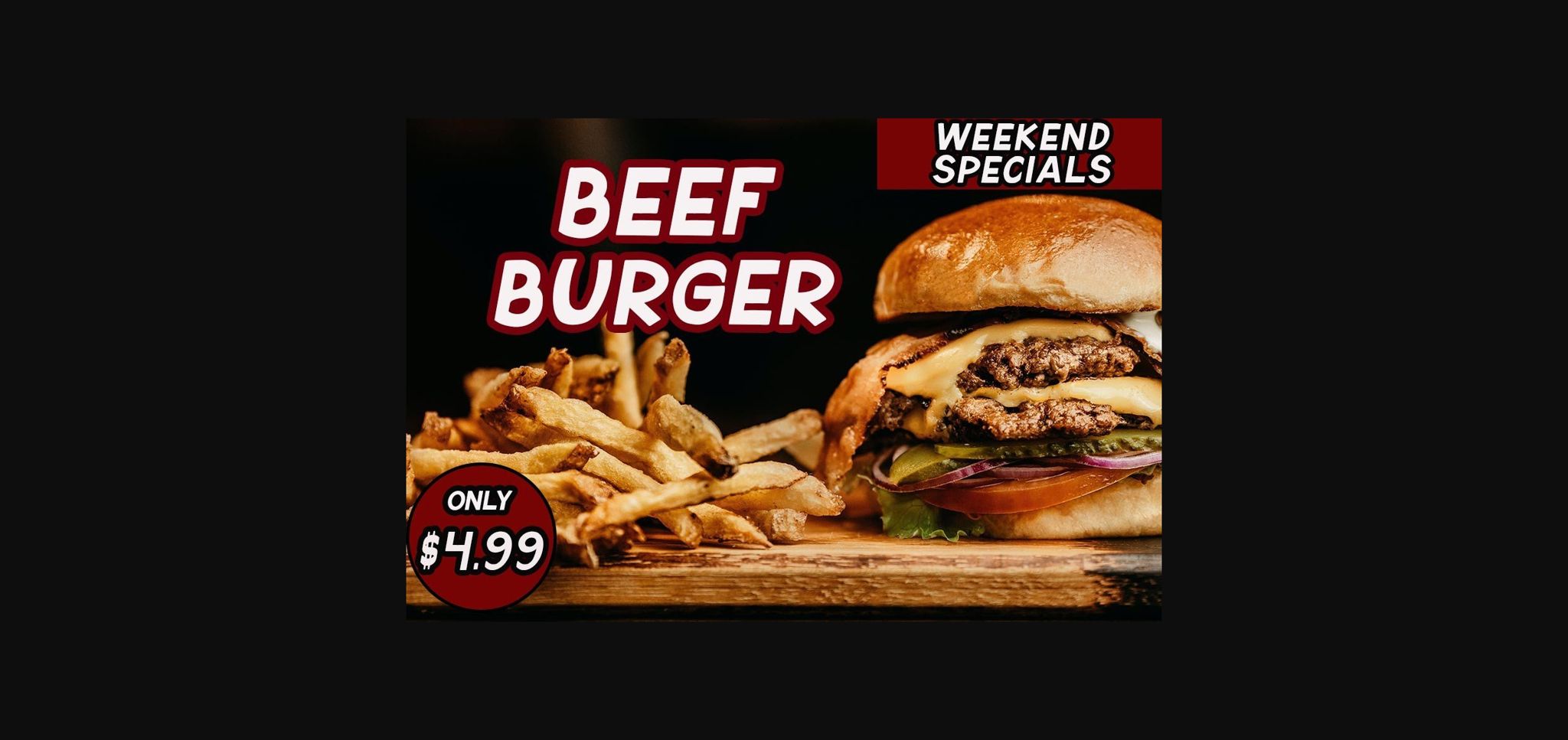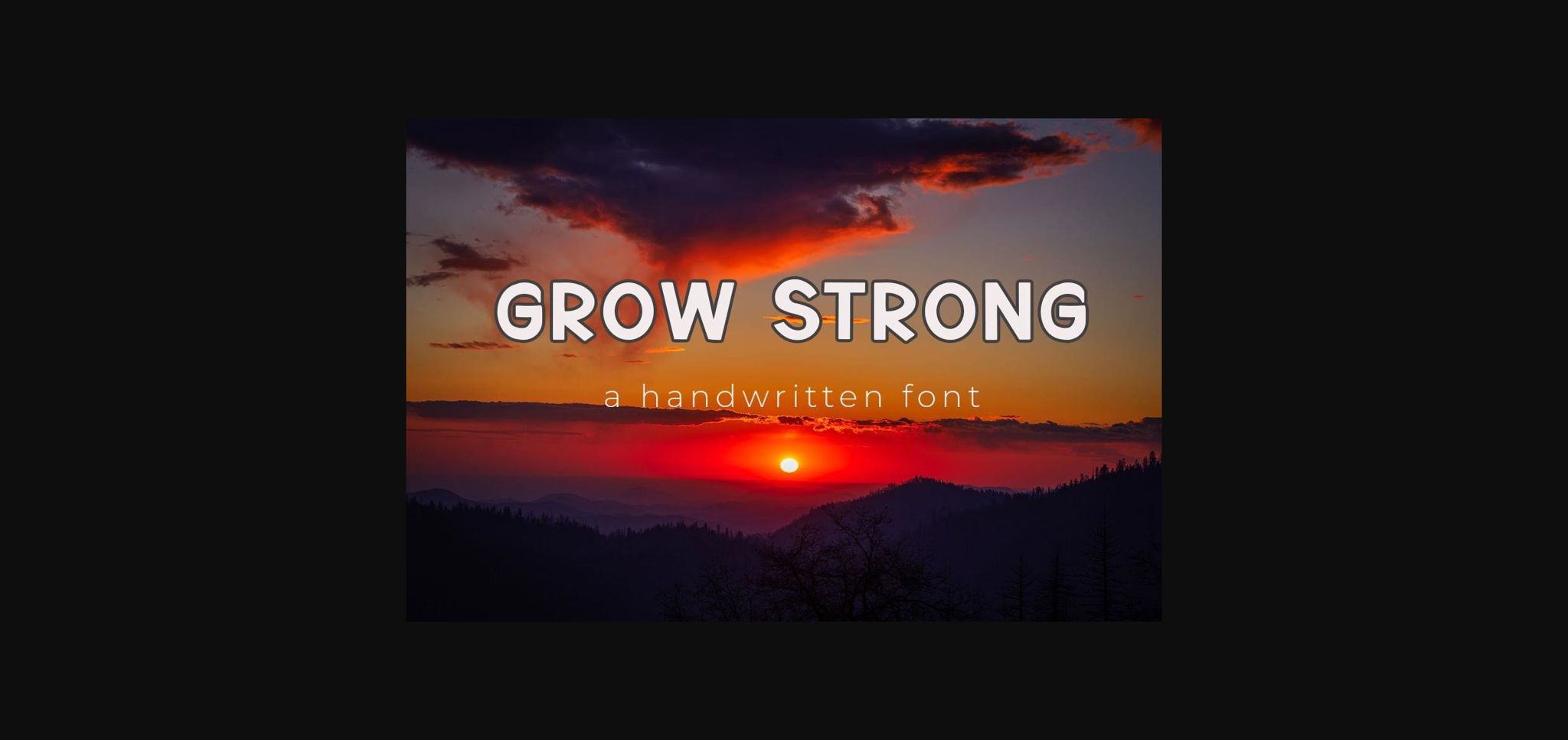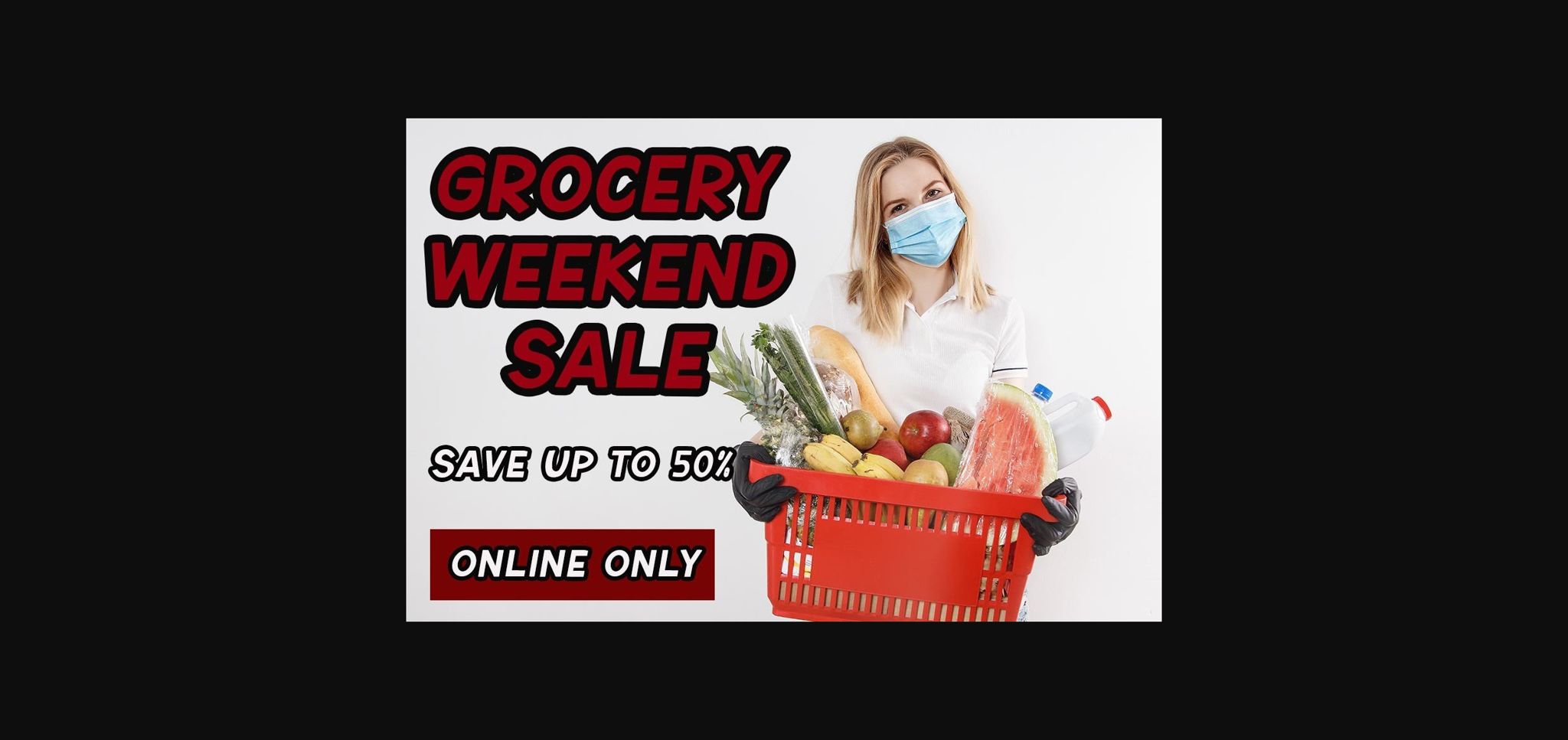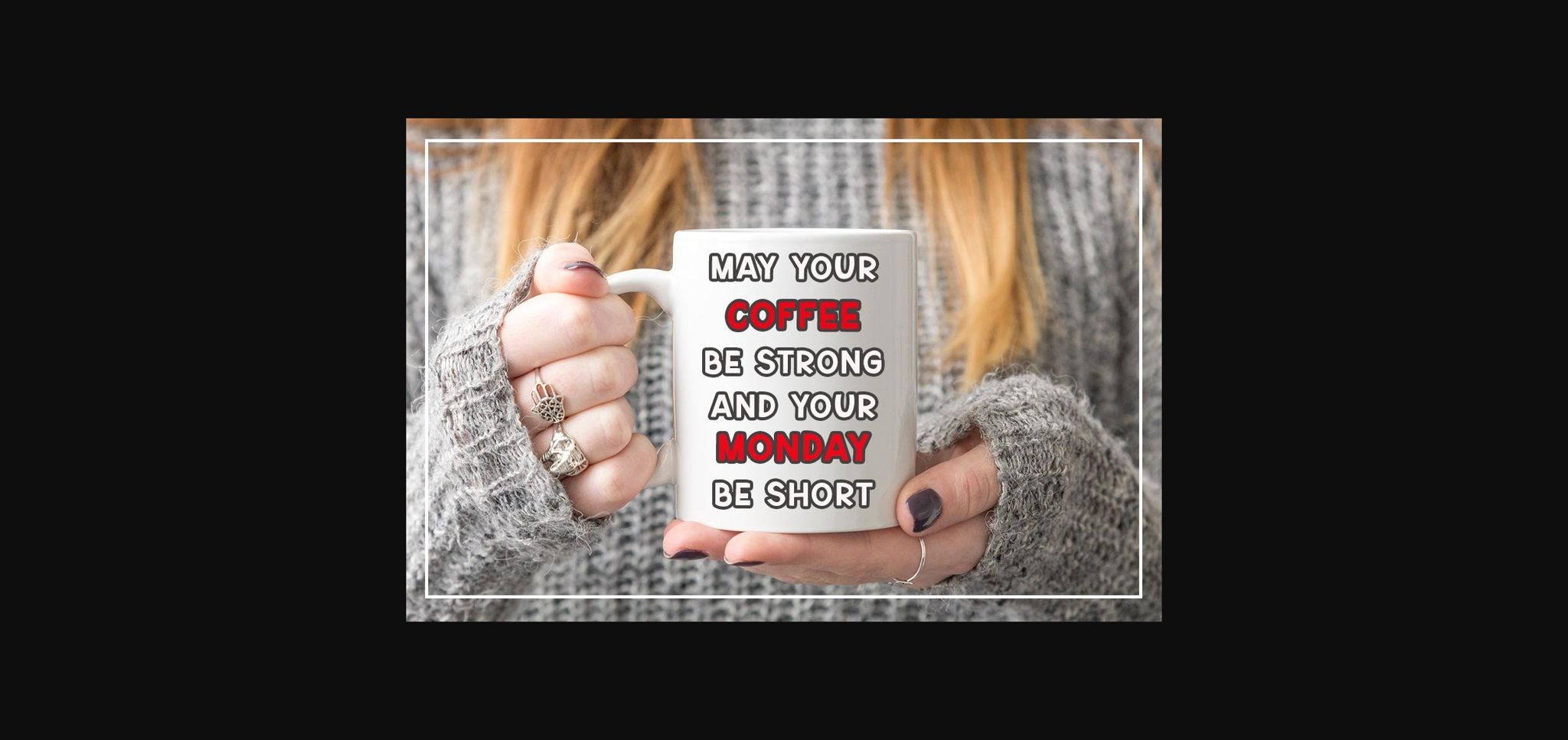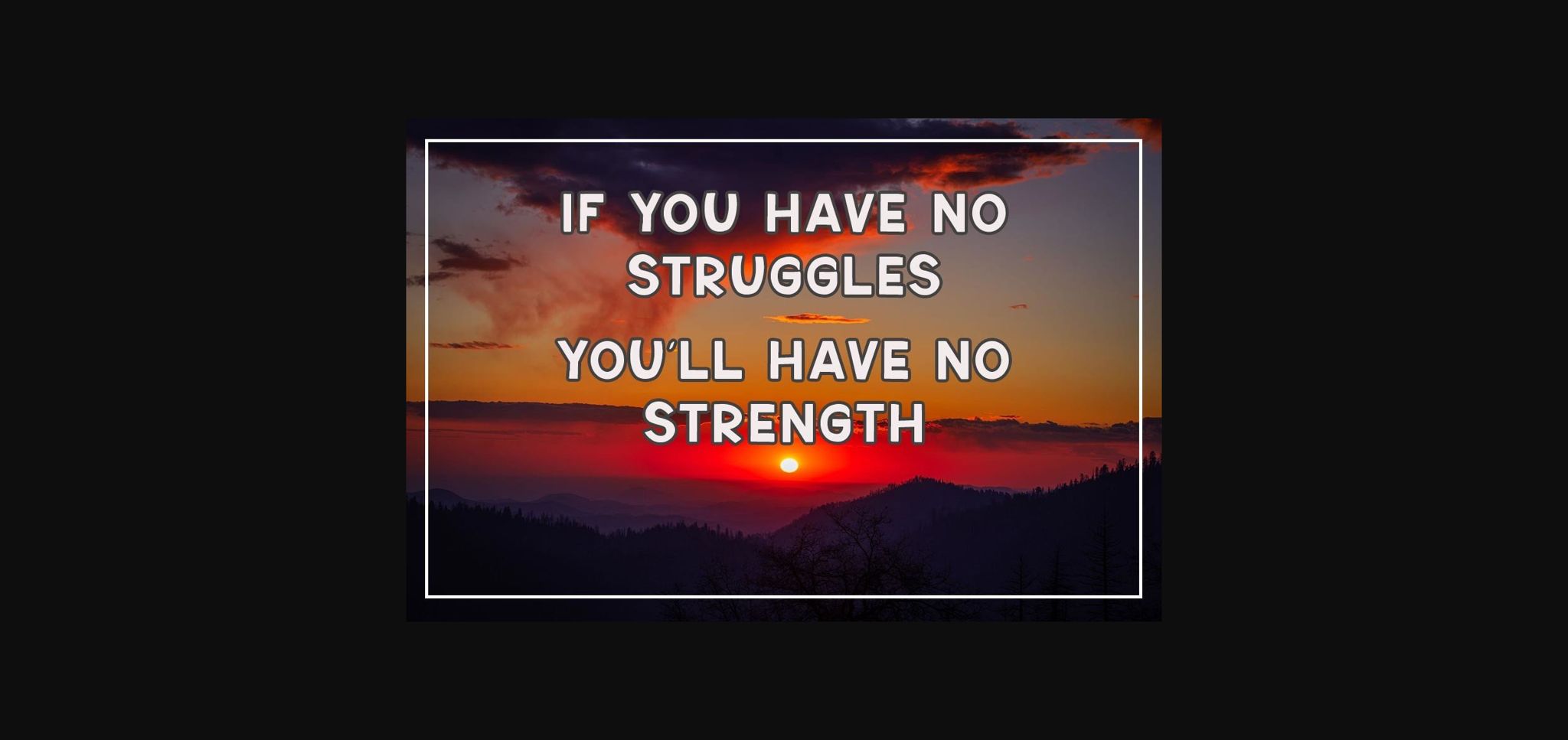
Grow Strong Font
About Grow Strong Font
Grow Strong is a handwritten thick sans serif font that will be great for logos, branding, lettering, card, or any project that needs a casual touch. Add it confidently to your projects and you will love the results!